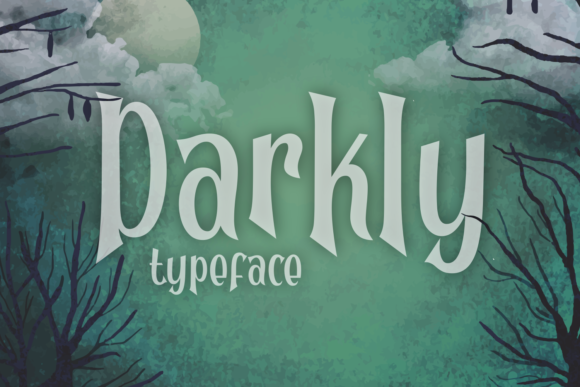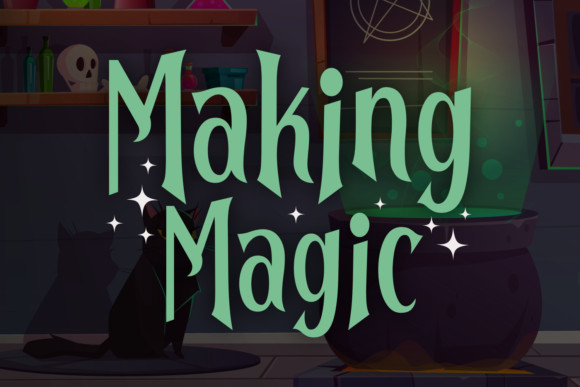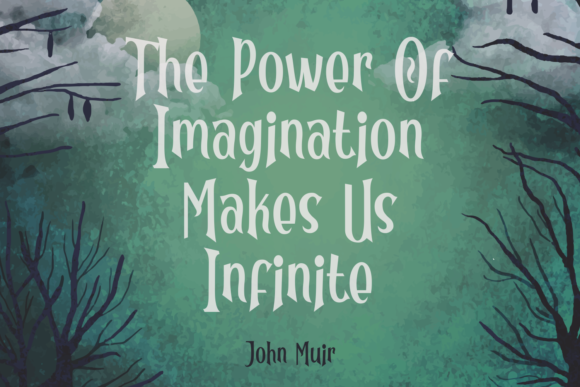
Darkly Font
Darkly is a cute display font. It has a spooky look that makes it perfect for any Halloween project!
It will look outstanding in any context, whether it’s being used on busy backgrounds or as a standalone headline!